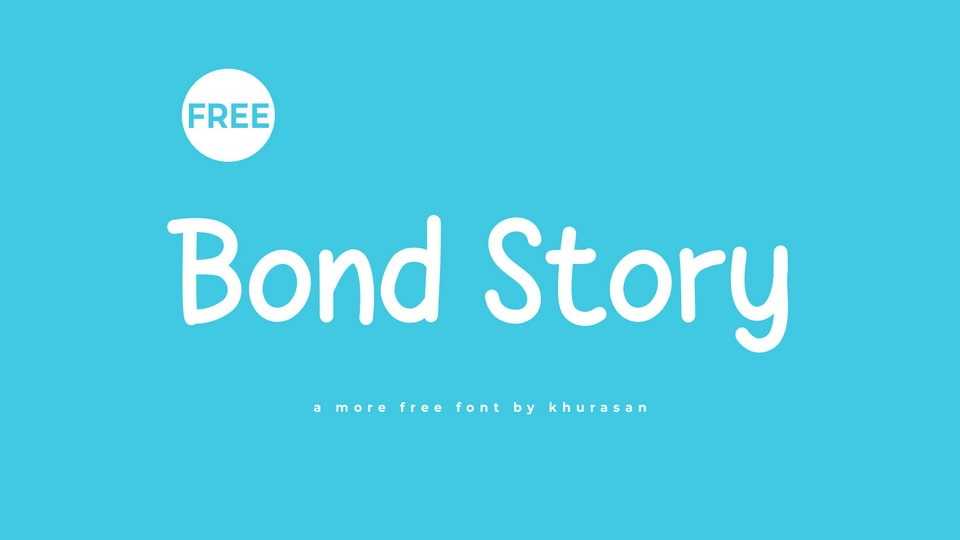
Download Bond Story font, a simple and casual hand-drawn comic typeface that adds a touch of spontaneity and charm to your designs. Bond Story font features playful strokes and irregular details, capturing the essence of a quick doodle brought to life.